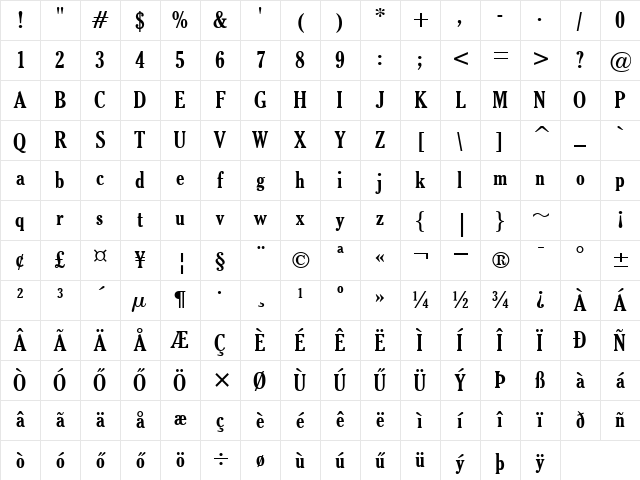
Complete H_Cheltenham BdCn BT Regular glyph index. Displaying only characters natively supported by H_Cheltenham BdCn BT Regular font.
H_Cheltenham BdCn BT is a composed and adaptable typeface that performs quietly and consistently across a wide range of design contexts.